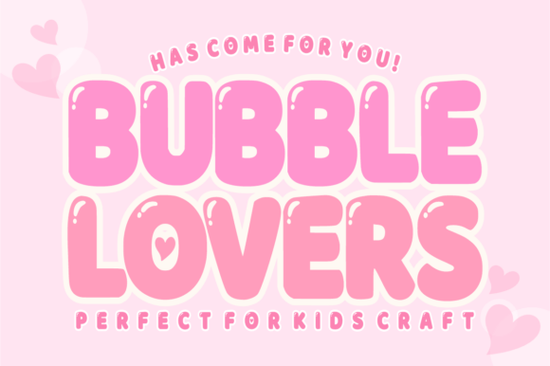
If you've been searching for a playful, rounded typeface that works across crafting machines and design apps, the Bubble Lovers Font is worth a close look. It's a chunky, bubble-style display font built for projects that need to feel fun, friendly, and approachable think kids' birthday invites, baby shower signage, candy shop branding, and social media graphics. Below, I'll walk through what it offers, who it's best for, and how to get the most out of it.
What Exactly Is a Bubble Font, and When Should You Use One?
A bubble font uses soft, rounded letterforms that look inflated or puffy like soap bubbles or balloon letters. They instantly give a design a lighthearted, youthful feel. You'll see them everywhere on children's T-shirts, party decorations, toy packaging, and YouTube thumbnails aimed at family audiences.
Bubble Lovers fits squarely in this category. Each character is bold, plump, and rounded with no sharp edges. It reads clearly at larger sizes, which is exactly what you want from a display typeface. If your project calls for warmth and personality rather than formality, this style does the job.
- Uppercase alphabet bold, bubbly letters with consistent weight
- Numbers and basic symbols matching the same rounded style
The character set is intentionally focused. You won't find lowercase letters or extended punctuation here, which is typical for display fonts designed around a specific visual theme. For headlines, titles, short phrases, and monograms, that's all you really need.
Yes and this is one of the main reasons crafters look for fonts like this. Bubble Lovers is optimized for smooth cutting paths. The rounded shapes have minimal sharp corners or tight curves that could snag a blade or cause weeding headaches.
If you've ever tried cutting a thin, ornate script font on vinyl, you know how frustrating cleanup can be. A thick, simple bubble shape cuts cleanly and weeds fast. That makes it a practical choice for:
- Heat-transfer vinyl on kids' T-shirts and onesies
- Adhesive vinyl for water bottles, tumblers, and wall decals
- Cardstock for banners, cake toppers, and party signs
Where Does Bubble Lovers Work Best?
Based on the font's style and character set, here are some project ideas that play to its strengths:
- Birthday invitations and banners the bubbly look feels celebratory without being childish
- Kids' apparel designs bold enough to read on fabric, cute enough for parents to buy
- Nursery wall art pair with soft pastels for a welcoming name sign
- Candy or toy brand logos communicates sweetness and playfulness instantly
- Social media graphics eye-catching for YouTube thumbnails or Instagram quote posts
- Print-on-demand products mugs, stickers, tote bags, and phone cases
- ✔ Pair it with a simple, clean body font for contrast bubble fonts work best in headlines, not paragraphs